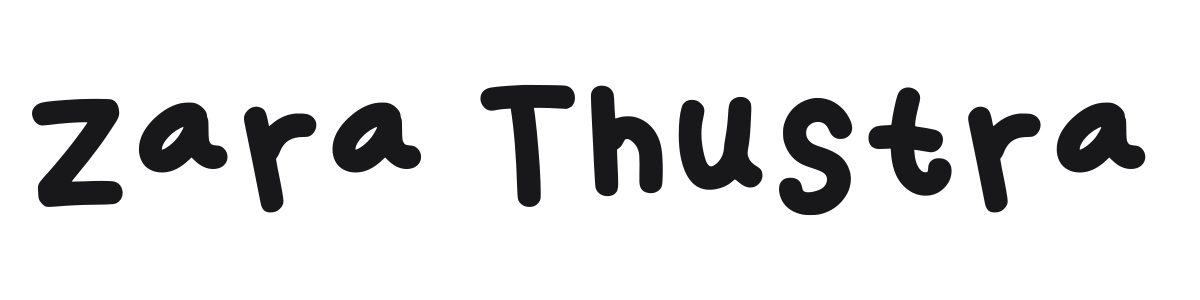
Zara Thustra
Zara Thustra is a thick, rounded handwritten face with the confident, slightly bouncy quality of someone writing big with a chisel-tip marker. The bold strokes and casual letterforms give it a playful energy that stays readable, making it a solid choice for headlines, packaging, and informal branding where you want something that feels hand-lettered and approachable. Designed by Docallisme HAS Feat Dutsky, it carries enough weight to hold its own at large sizes without feeling heavy-handed.